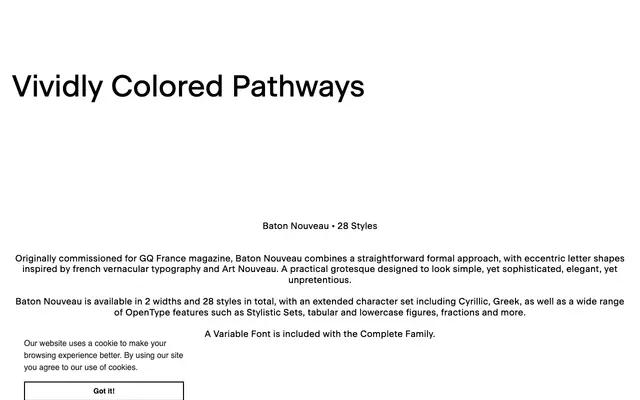
Baton Nouveau
Originally commissioned for GQ France, this grotesque draws on French vernacular typography and Art Nouveau to produce letter shapes that are eccentric without being decorative.
Baton Nouveau is a 28-style grotesque family spanning seven weights in two widths, Regular and Condensed, each with matching italics. The design was born from a magazine commission but carries a broader range, with character set coverage extending to Cyrillic and Greek and a full suite of OpenType features including stylistic sets, tabular and lowercase figures, and fractions. A variable font is included with the complete family, covering weight, width and slant axes.
Baton Nouveau is a grotesque sans with practical, straightforward letterforms; its Art Nouveau and French vernacular influences introduce eccentric details within an otherwise clean grotesque structure.